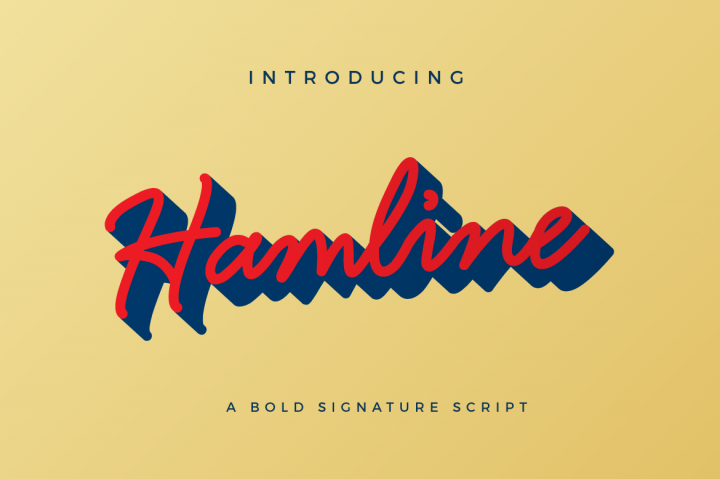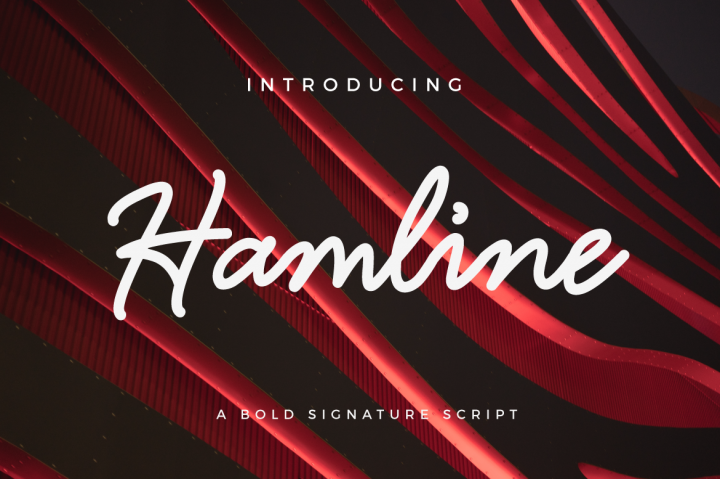
Hamline
Hamline Signature Font
Hamline is a bold signature script font. Hamline font is suitable for any design needs, modern invitation design, branding, blog design, modern advertising design, invitation, Art Quote, Home decor, Book/Cover Title, Invitation, special events, birthday, custom mug, pillow, t-shirts, any handwritting signature style needs and more.